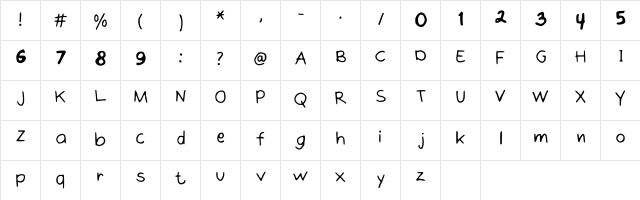
Meeneeloo Regular Regular
Design Context for Meeneeloo Regular Typeface
Meeneeloo Regular is a composed and adaptable typeface that performs quietly and consistently across a wide range of design contexts.